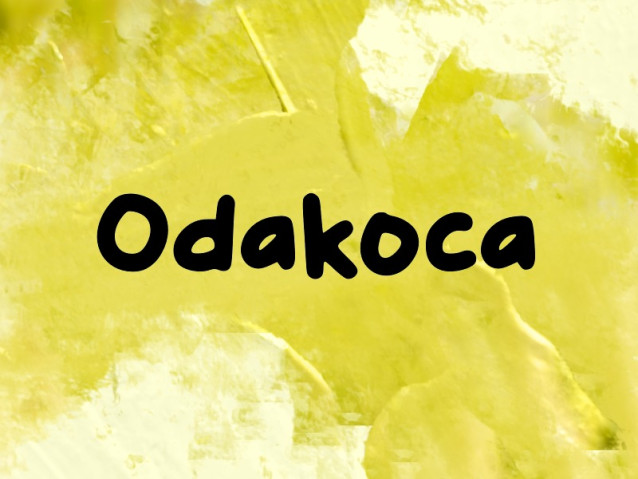
Odakoca Font
Odakoca Font is a simple and modern display font suitable for quotes, logos, headings, titles, and many more. Use it on any of your creative projects, and your designs will become outstanding!